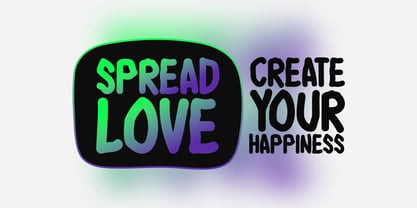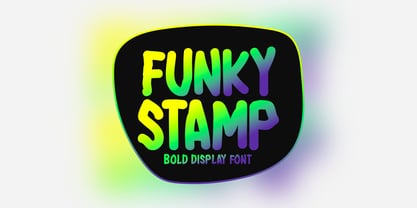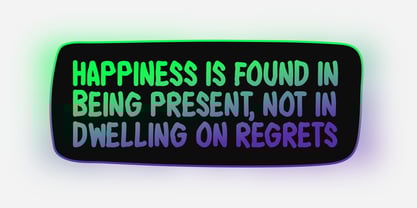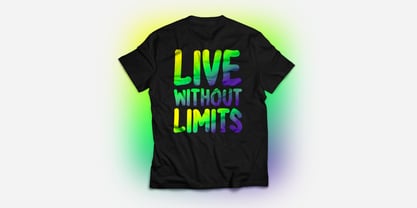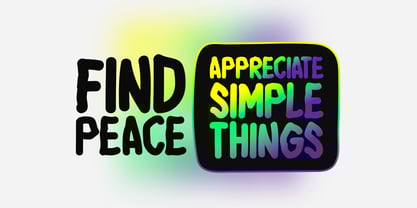
Funky Stamp
by Seemly Fonts
The Funky Stamp Font Family was designed by Md. Sohail Bhuiyan and published by Seemly Fonts. Funky Stamp contains 1 styles. More about this family
Funky Stamp is a bold, eye-catching display font designed to make a statement. Whether you're designing for print, digital media, or branding, Funky Stamp brings a fresh, dynamic look to your projects. Its versatile nature makes it ideal for everything from logo design and stationery to t-shirts, flyers, photo frames, and posters. Use it for website headers, music covers, image sliders, and much more—Funky Stamp delivers the perfect blend of style and flair for any creative project.
Designers: Md. Sohail Bhuiyan
Foundry: Seemly Fonts